What is retro design? You must be curious about it when people talk about retro most of the time in this era. It is more likely to be described as an old-styled substance. However, you have to keep in mind that retro is something else rather than the other based on its key elements and characteristics.
What is set off retro design from the other concept, especially vintage design? Here, you will learn the facts behind “What is retro graphic design”.
Key Takeaways:
- Full elaboration of retro design that looks similar to vintage concept yet both are slightly different.
- The touch of key elements in retro concepts will elevate design value.
- A guide to a deep knowledge of retro design characteristics.
Retro Design Overview
The beginning of retro was started from the 20s to the 80s with authentic design and vintage items. Originally, the term retro is a Latin prefix that means backward and refers to something in the past.
Furthermore, retro design ideas have been awakening in this era to raise memories about the past to the new generation. It turns into a bridge to connect generations through the retrofuturism movement. It is supposed to introduce modern retro design to the earlier era with upgraded retro design elements.
The upgraded look of retro is credible to collect experience and influence users emotionally. It can trigger users to buy, invest, and remain to watch, read, and sightseeing to the products. It will be easier to engage the audience by maximizing the key elements and maintaining retro characteristics.
Regardless, you are probably getting confused between vintage and retro designs that somehow look like a twin. The fact is both are different in terms of age, color, and concept.
What is retro design reference? It is most likely to be the design appearance that consists of vintage items and creates an old-style look. Retro comes later than vintage design with several upgrades in color to be more vibrant rather than vintage. In short, retro is younger and more modern than vintage.
On the other hand, vintage refers to the stuff that comes from the past and has aged for at least 100 years. Vintage items can be pivotal supporters of retro design to enhance the look. For instance, using vintage images for graphic design with additional authentic typography will leave an impression on the audience.
The Key Elements of Retro Design
Just as the design has principles, the retro design also applies various pivotal key elements to maintain the retro value. Dive deeper into retro design concepts by understanding what is retro style in graphic design characteristics. Start reading below!
1. Vivid Color Palette
Being retro is all about pulling vibrant colors for the design. Balanced bold and muted tones are highly recommended to maintain the color palette soft and less complex. Neutral colors such as grey, white, or beige will be helpful to mute the tone that blends with bold colors.
However, you can refrain from muting the tone by staying bold with a vibrant color palette such as bright red, orange, yellow, and blue. The vibrant colors represent an energetic ambiance in the graphic design concept.
2. Groovy-Retro Typography
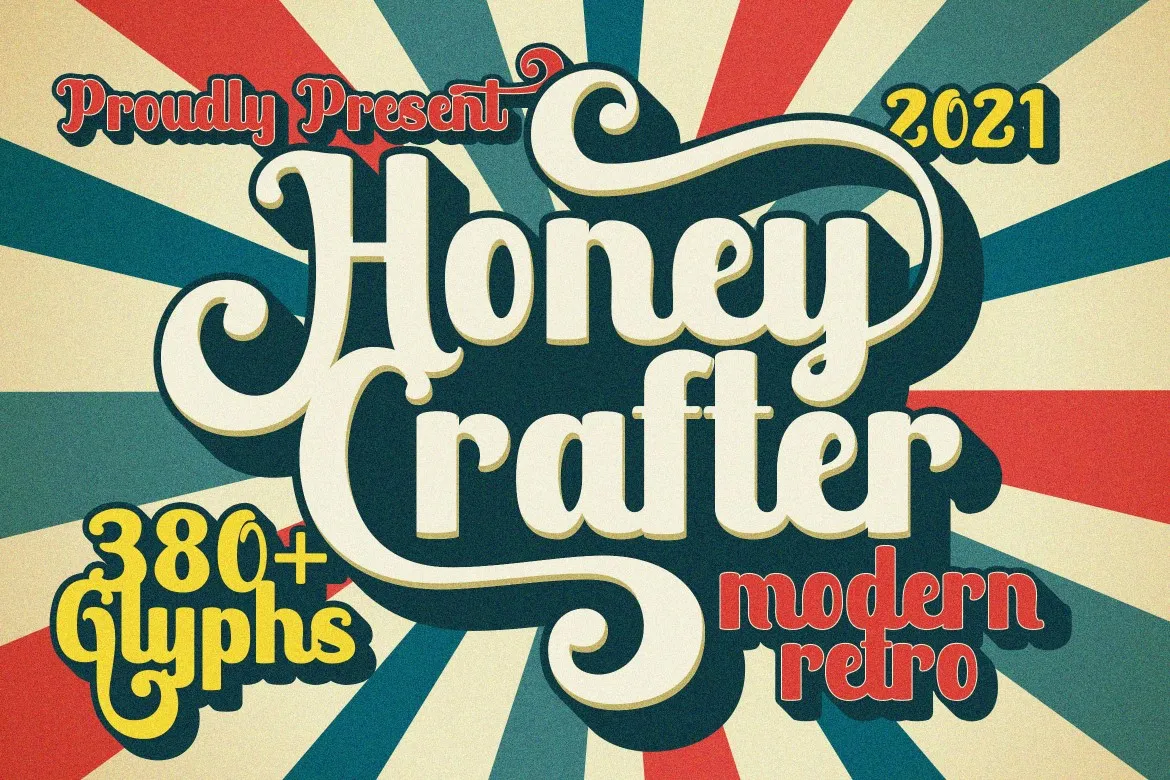
The crucial element to enhance retro design is typography types that suit the design concept. Ensure the font pairing to avoid messy and unbalanced visuals since the retro design is already using bold colors that stand out. The typography shape is important to keep the readability since it is not only a decorative element but must be a point.
3. Bold and Iconic Patterns
If we are speaking of what is retro design characteristics, bold and iconic patterns are the answer. Bold patterns such as circles, checkerboards, and sparkles are shapes that are most likely to be used in retro graphic design.
You can match the complex shape with vibrant colors to put it as the center focus. Even though becoming bold with pattern and color are retro characteristics, you have to be aware of layering and element placement.
4. Vintage-Touched Texture
What’s more, textures are good to blend with the pattern in retro design to enhance the vintage style. You can use paper or old film textures to emphasize the vintage composition in the graphic design.
5. Archetypal Elements
Elevate the retro design concept with mid-century elements to maintain the minimalist view. Mid-century elements in retro graphic design are a combination of clean lines, shapes, and vibrant colors to be element focus. This also works with pop-art elements to draw attention from audiences.
Additionally, you can pull another concept for retro design with pixelated elements that will enhance the retro game concept. It can be matched well with pixelated typography as well.